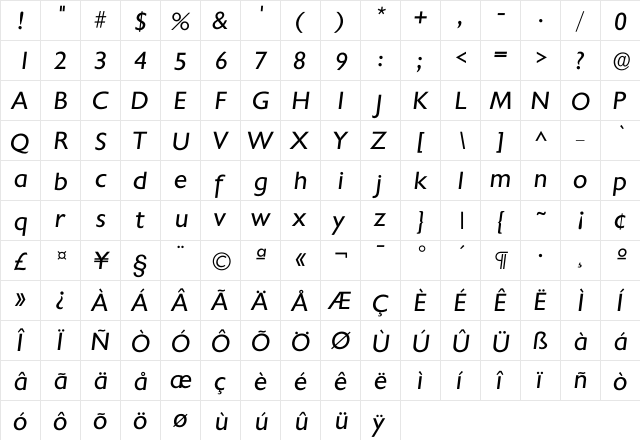
Ichantilly Regular Font Preview
Ichantilly Regular
Ichantilly Regular Font Details
Design Context for Ichantilly Typeface
Ichantilly takes a measured approach to typography — its balanced proportions and neutral character make it a reliable workhorse for both digital and print work.